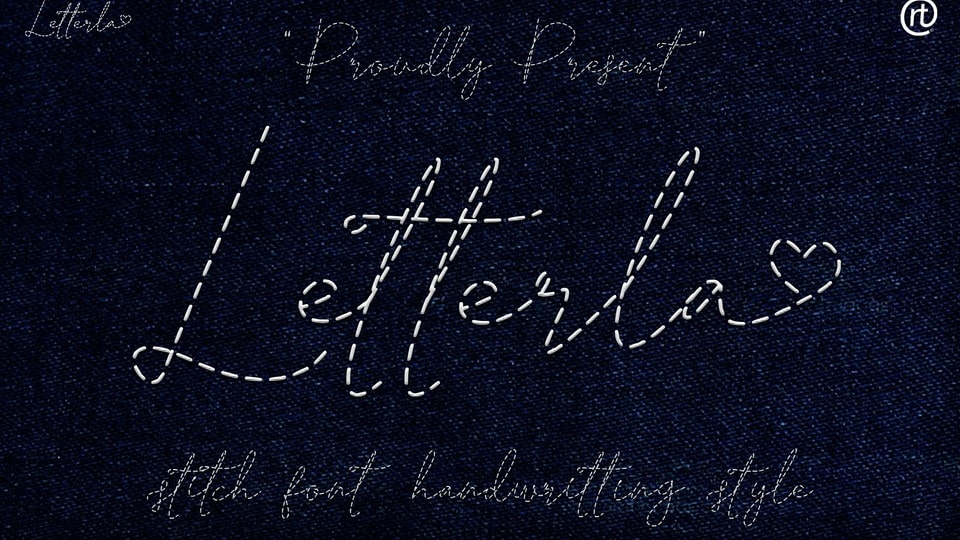
Download Letterla font, a decorative handwritten typeface inspired by embroidery stitches blended into a variety of fabrics in cotton and denim. Letterla font is suitable for any small or big project.
Designer: Ridwan Fadilah